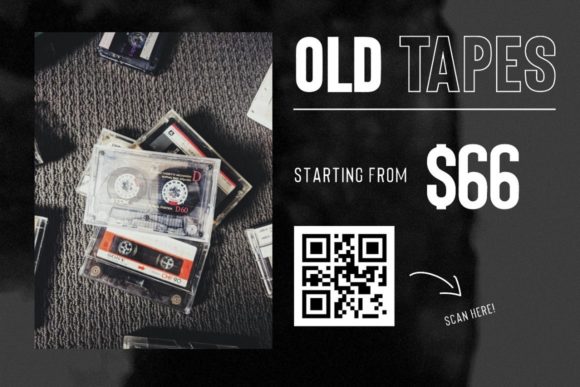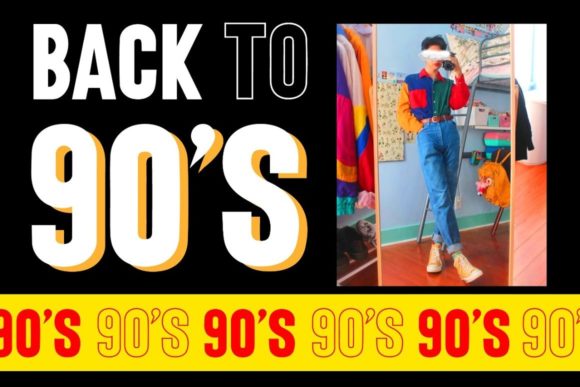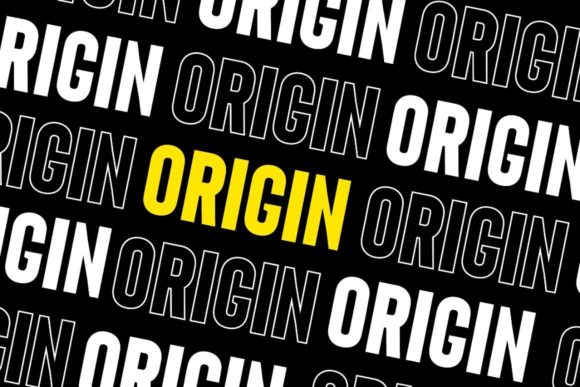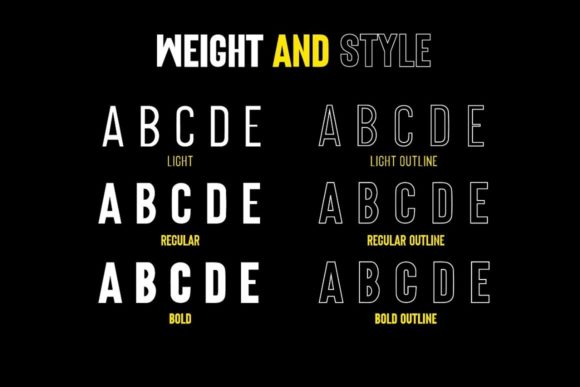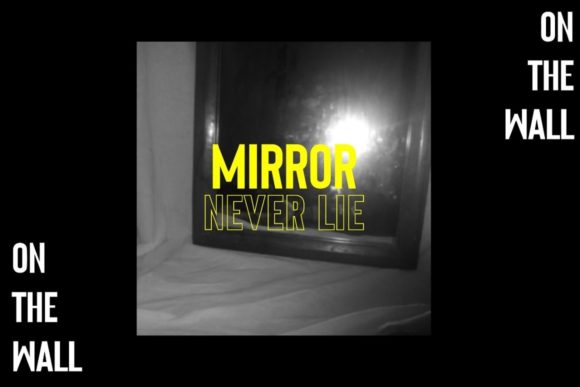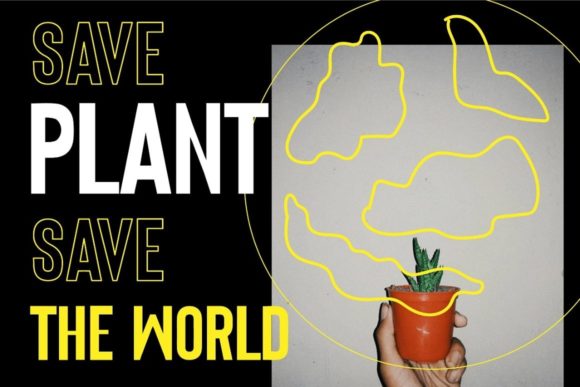
Introduction to Origin Font
You’re sitting at your desk, staring blankly at your computer screen, and suddenly a spark of creativity hits you. You envision a beautiful logo for your new business, a stunning title for your upcoming project, or a catchy phrase for your social media campaign. But, as you start typing, you’re met with a sea of options – fonts, colors, and layouts – and you’re not sure where to begin.
This is where the Origin Font comes in – a reliable and versatile design resource that’s sure to elevate your creative project. With its bold and simple sans-serif style, this high-quality font is perfect for any occasion, whether you’re working on a personal or professional project. Plus, with its transparent background, you can easily combine it with any image or color scheme to create a cohesive and visually appealing design.
Key Features of Origin Font
- Features a transparent background, allowing for seamless integration with any design.
- Includes a range of glyphs and characters, making it a versatile design resource.
- Designed to be scalable, with optimal results at 300 DPI resolution.
- Perfect for designers and artists looking for a high-quality, free design resource.
- Origin Font is a popular choice among designers, thanks to its high-quality design and transparent background.
Honest Review: Origin Font
I recently had the chance to experiment with the Origin Font, and I must say it’s been a game-changer for my creative projects. This free download has been a valuable addition to my design resources.
- ✨ High-quality design: The font is crisp and clean, making it perfect for a variety of projects.
- ✨ Transparent background: This feature allows for easy customization and layering in my designs.
- ✨ Versatile: The Origin Font is suitable for a range of creative applications, from digital to print.
- ⚠️ Limited character set: While the font is well-suited for headings and titles, it’s not ideal for extended text.
- ⚠️ Not suitable for small text: The font’s design makes it challenging to read in small sizes.
Overall, I’m impressed with the Origin Font. Its high quality and versatility make it a valuable design resource. While it may have some limitations, it’s definitely worth considering for your next creative project.
Tips for Getting the Most Out of Origin Font
To get the most out of Origin Font, experiment with different font sizes, styles, and colors to create visually appealing designs. Use it in conjunction with other design elements to create a cohesive look.
Common Use Cases for Origin Font
Origin Font is suitable for a variety of creative projects, including logos, posters, brochures, and presentations. Its high-quality design and transparent background make it an excellent choice for overlaying text on images.